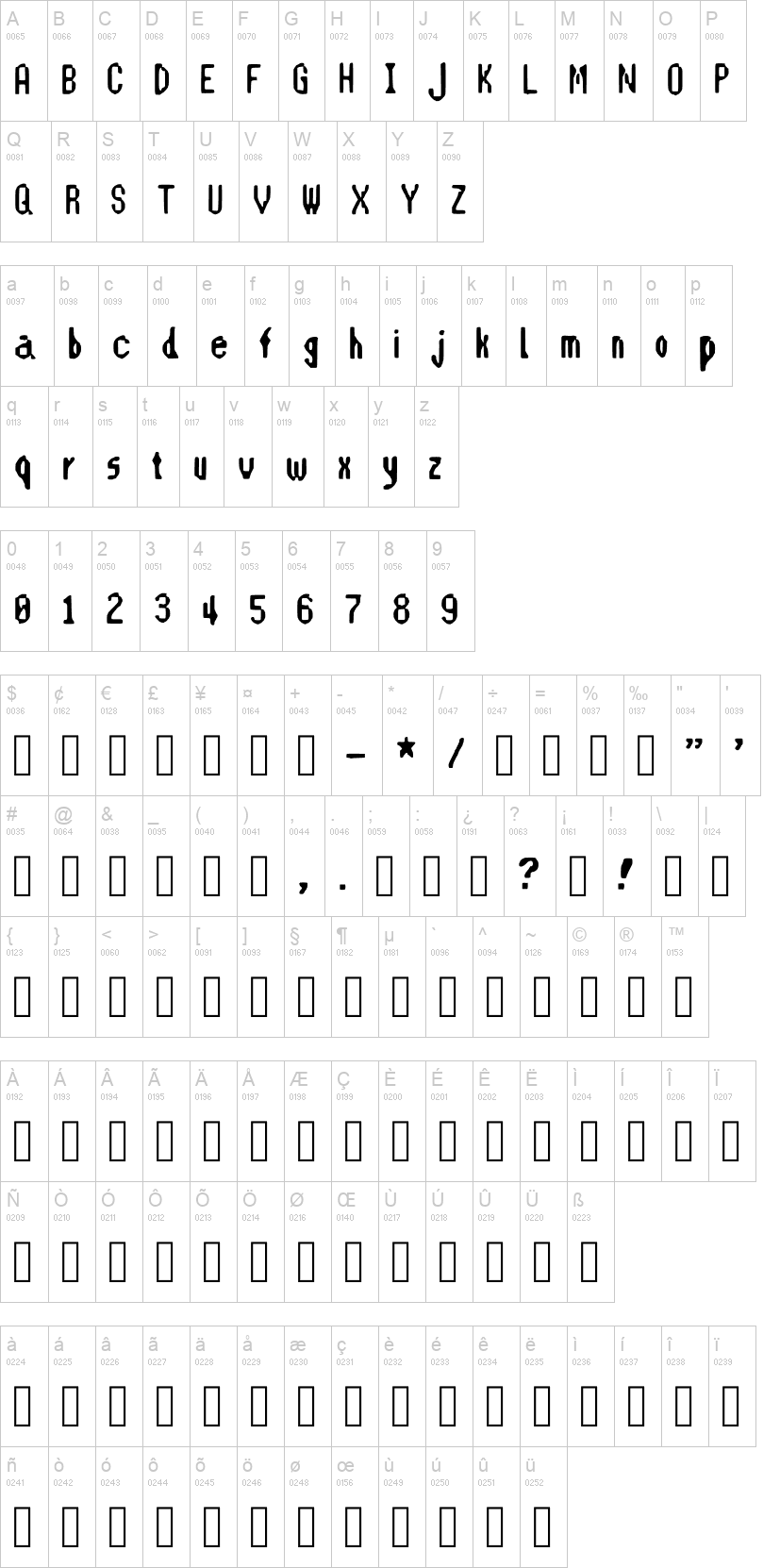
Note of the authorThis is the regular font that can be found in the game, Digimon World DS, released for the Nintendo DS on 2006. Since I couldn't find this font anywhere, I basically created made a font of this from a picture that I had.